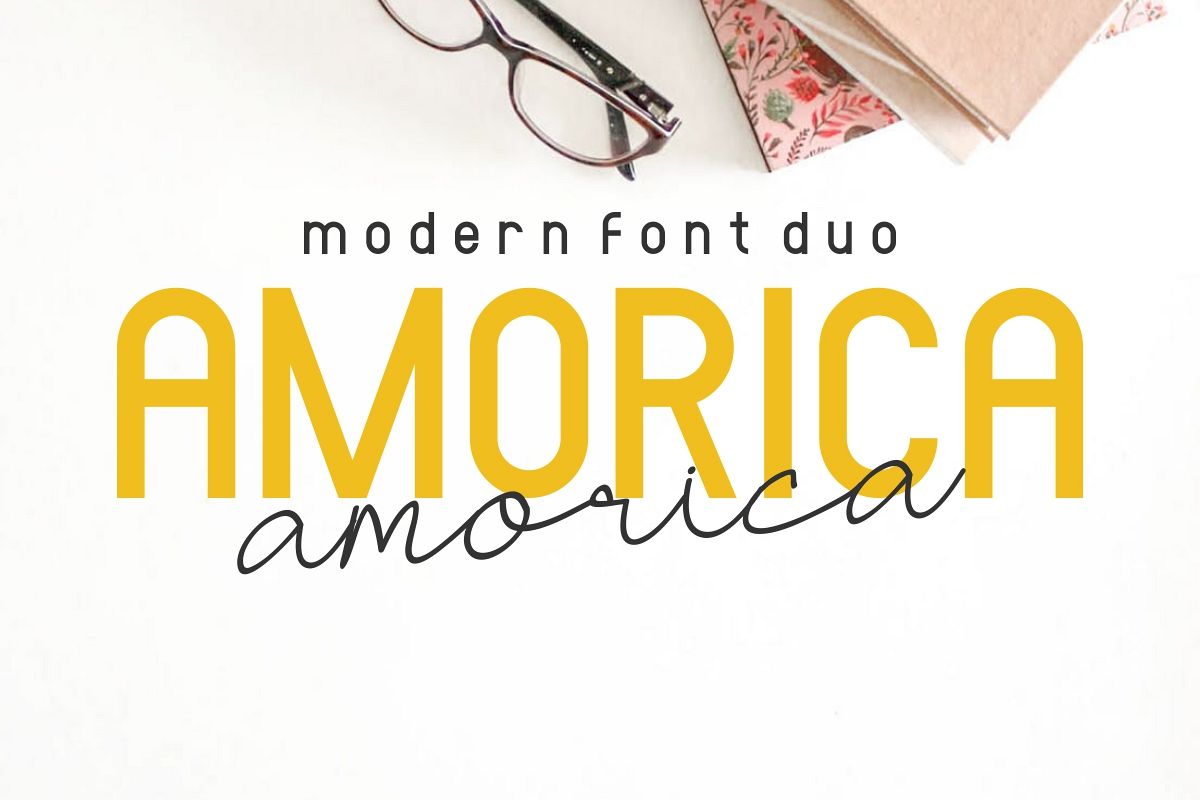
AMORICA
What’s up everybody?! Introducing our newest font : AMORICA ! You’ll get 4 (FOUR) fonts : Sans, Stroke, Script and Italic Script.This is a new modern script handwriting script font with stylish signature style font. It has a fresh, elegant, natural and stylish glyph. Remember, you’ll get 4 FOUR fonts by buying only one this font!It will be perfect for branding, logo, photography and signature. It is so elegant, classy, strong and beautiful. Great for invitation, cover, stationery, business card, signage, flyer, brochure etc. There are many industries that is suitable for this font :, real estate, salon, hair stylish, beauty make up, designer, architect etcThis font will Work on PC & Mac with Simple installations. Accessible in the Adobe Illustrator, Adobe Photoshop, Adobe InDesign, even work on Microsoft Word. It’s also PUA Encoded Characters – Fully accessible without additional design software.Purchase with confidence! =)